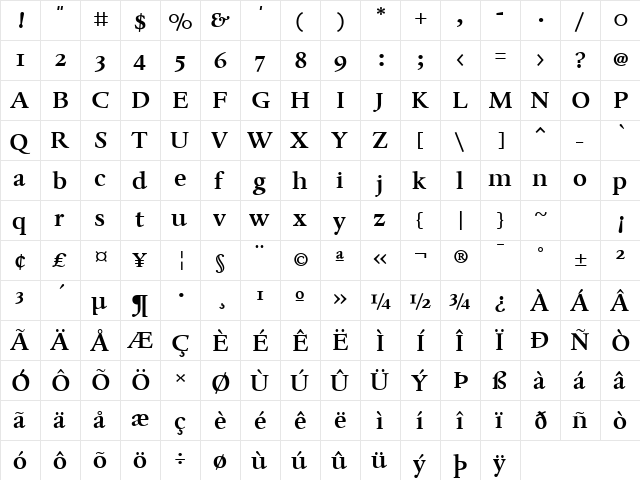
Whitenights LT Std Bold Regular
| Foundry | Linotype Library GmbH |
| Designer | Lars Berquist |
Design Context for Whitenights LT Std Bold Typeface
Whitenights LT Std Bold offers clean, dependable letterforms without strong stylistic allegiance, making it a practical choice for designers who need flexibility. The heavy weight commands attention and anchors typographic hierarchies.